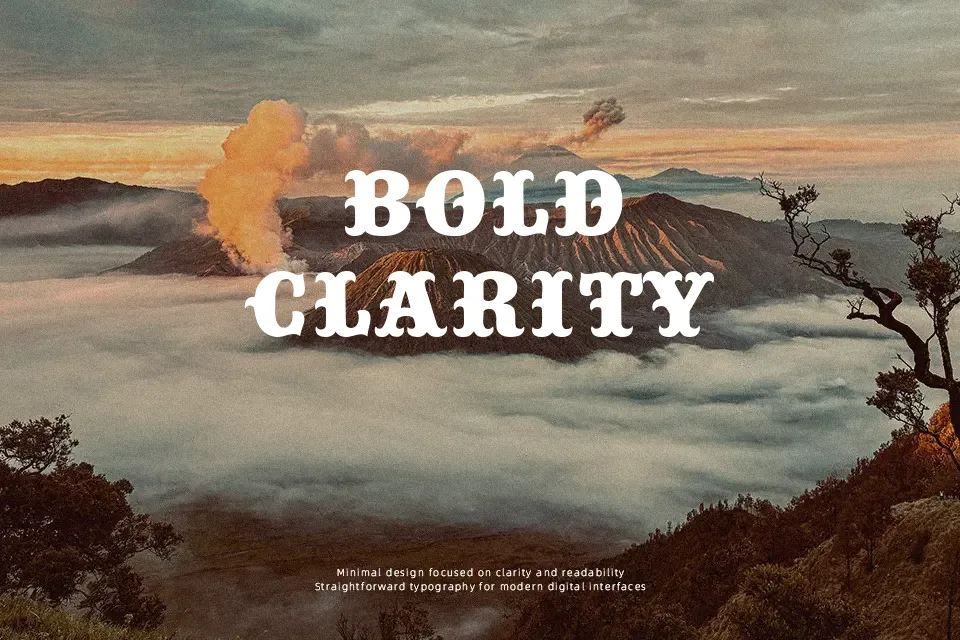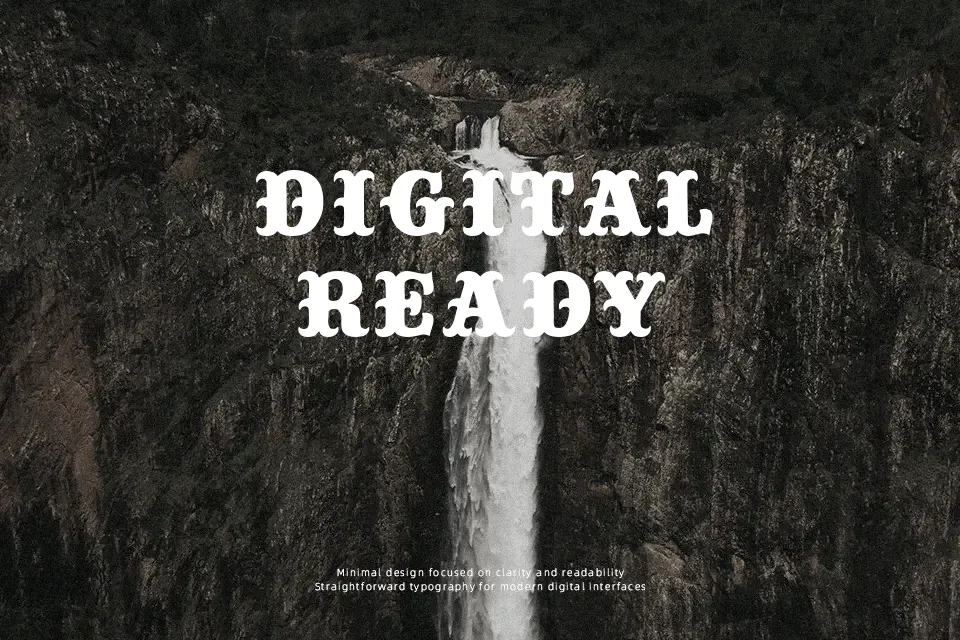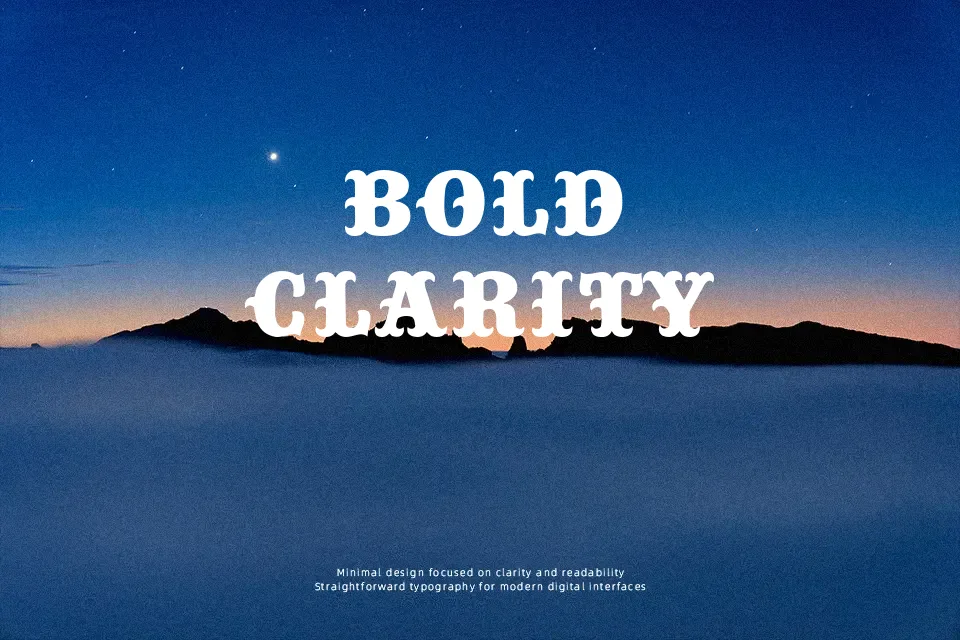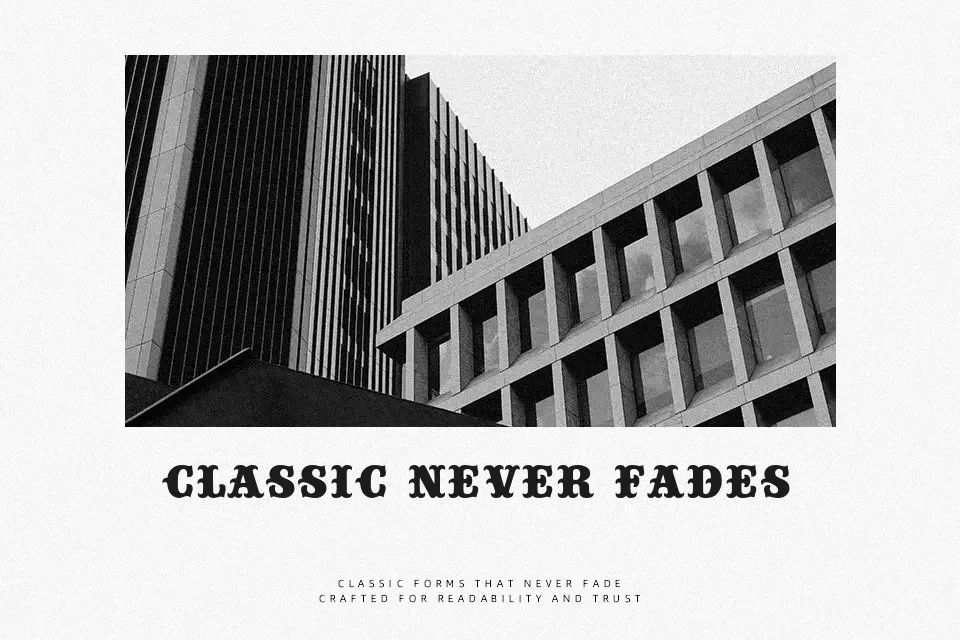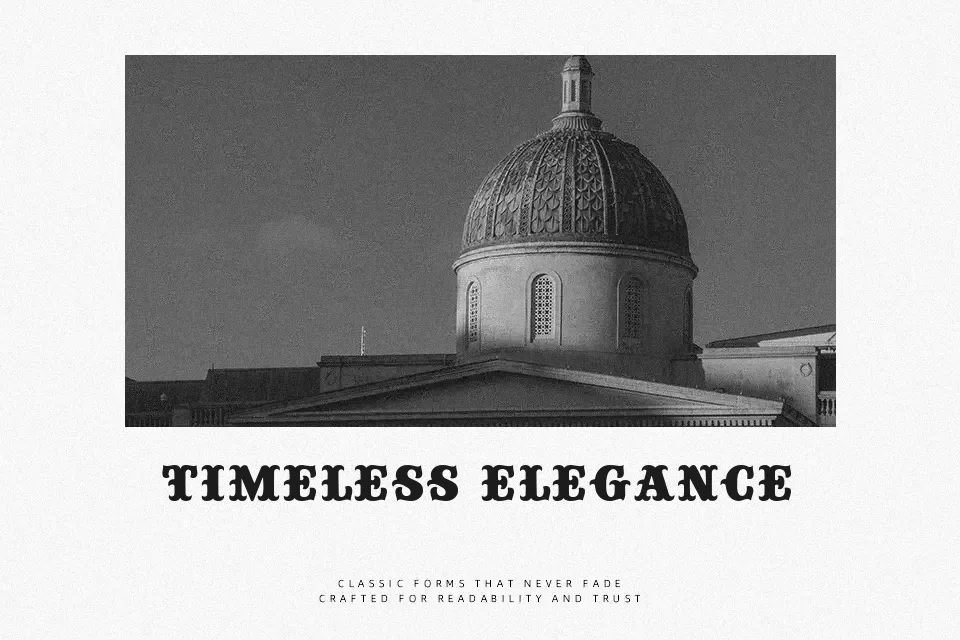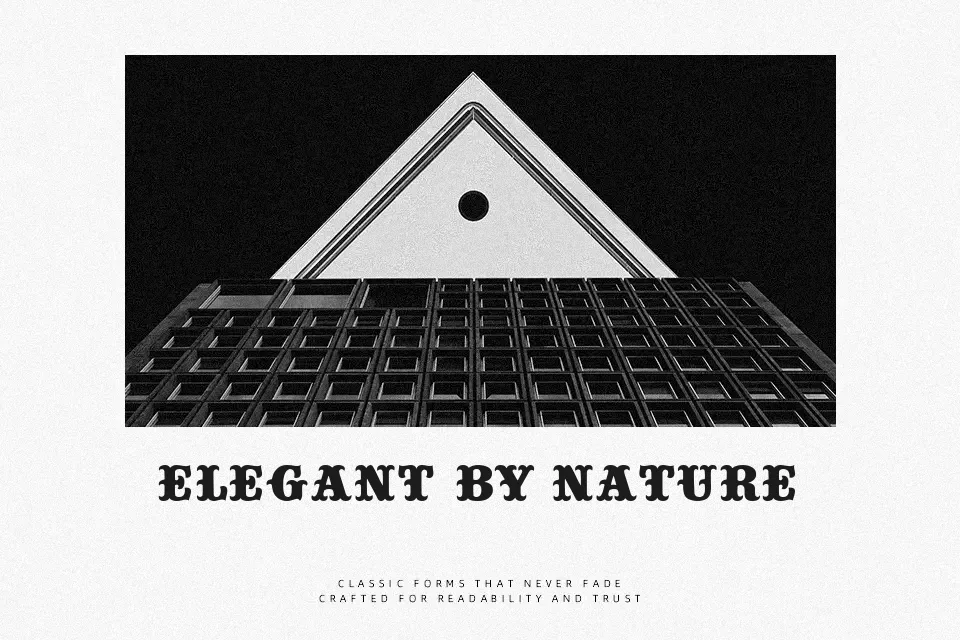
Big Top Font
Big Top leans into thick, blocky letterforms with strong vertical strokes and compact spacing, giving each word the weight of an old circus banner. Decorative serifs and slightly quirky curves add a theatrical, carnival feel rather than a polished corporate look. It works well when you need a single striking word or short phrase on posters, funfair tickets, kids’ party invitations, or retro signage that should shout for attention. However, its heavy shapes and ornate details quickly feel overwhelming in long lines or small sizes, so it struggles in body copy or dense layouts. Use it sparingly as a headline accent and pair it with a cleaner supporting typeface for readability.
circus-themed event posters
kids’ party invitation headlines
retro carnival signage and banners
formal corporate communications
small-size UI labels and captions
Perfect for advertising, branding, and headline, with a bold and decorative style.